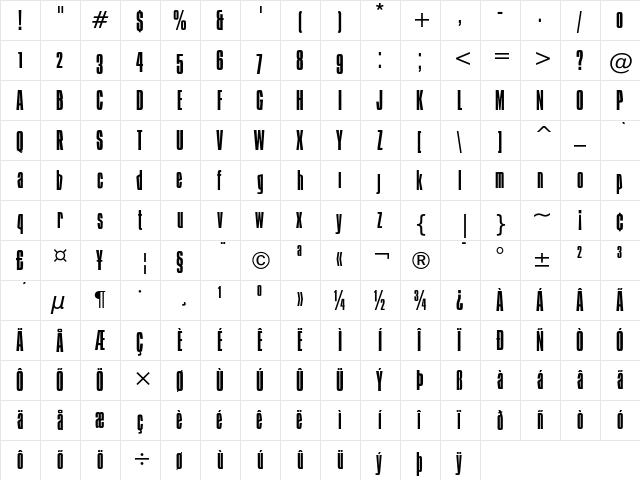
Ibiza Regular
Design Context for Ibiza Typeface
Ibiza takes a measured approach to typography — its balanced proportions and neutral character make it a reliable workhorse for both digital and print work.
Pro Tip: Use Ibiza in both headline and body roles to test its range before committing to a single application.